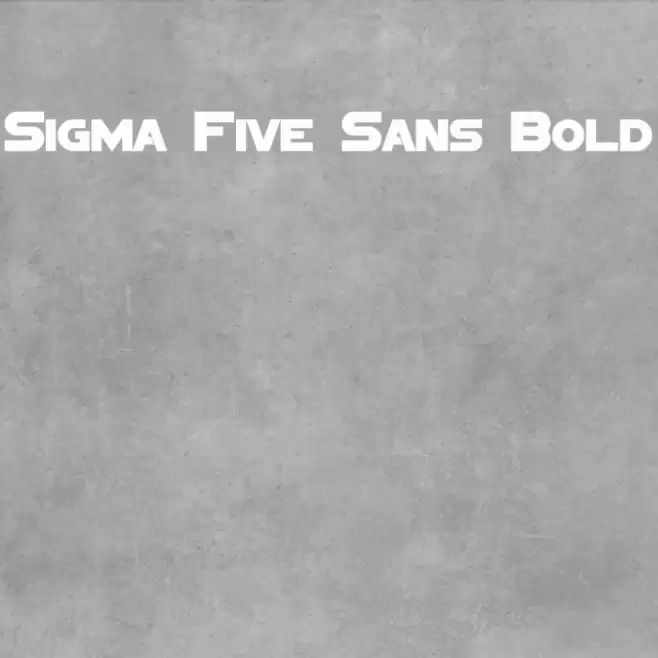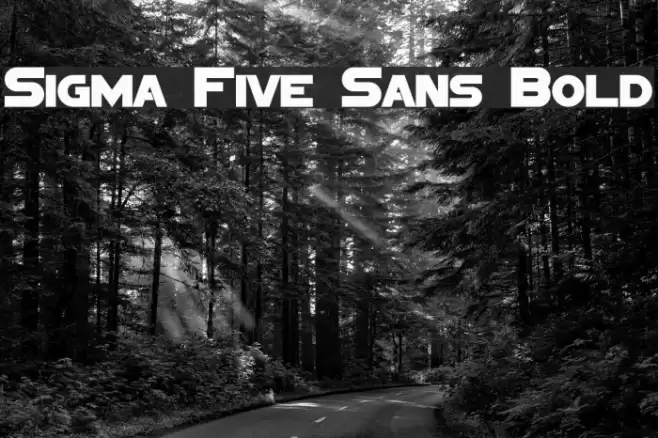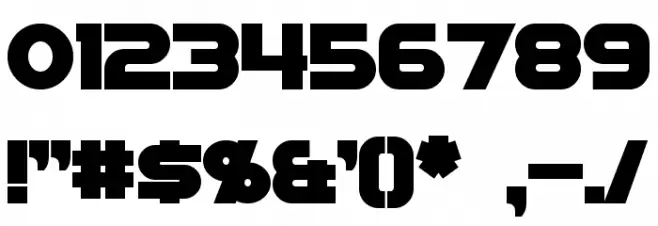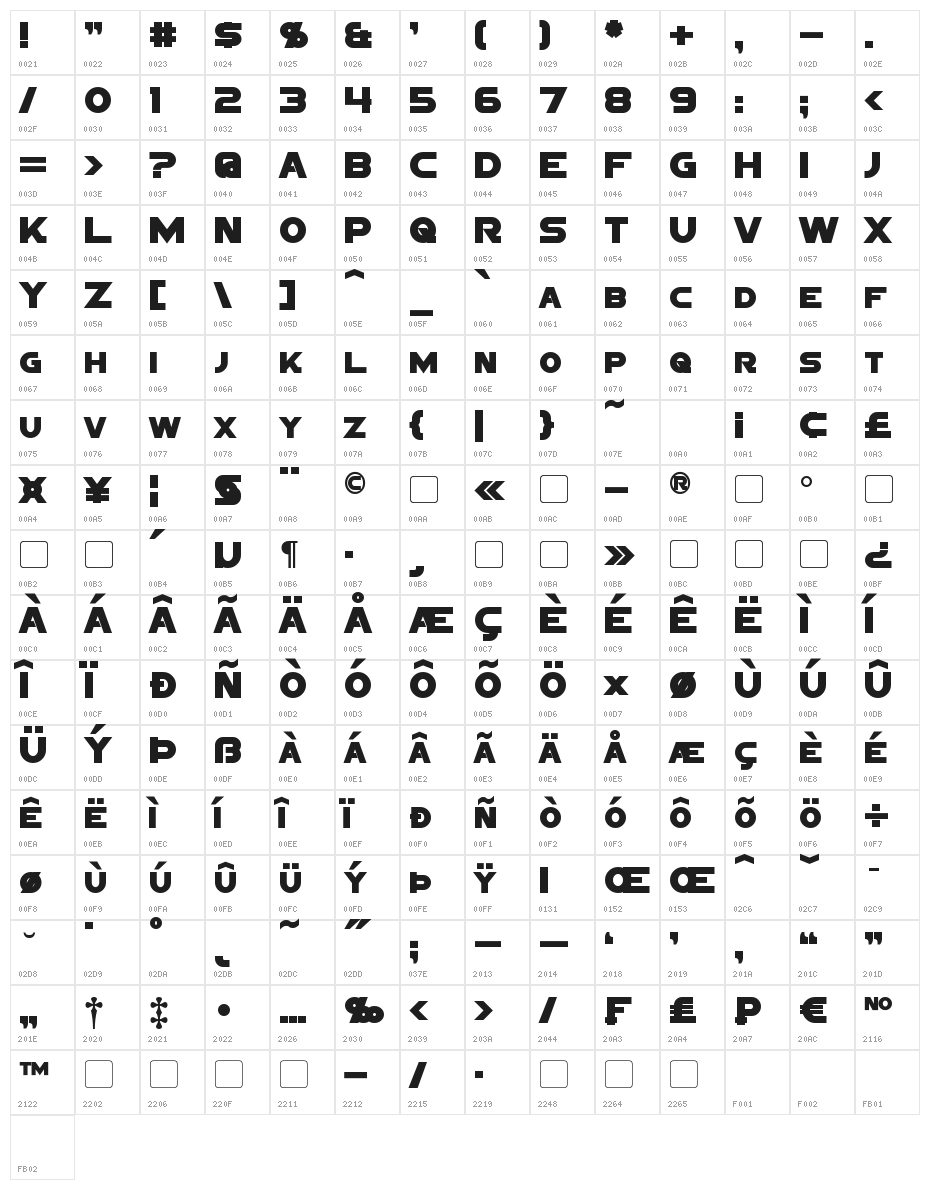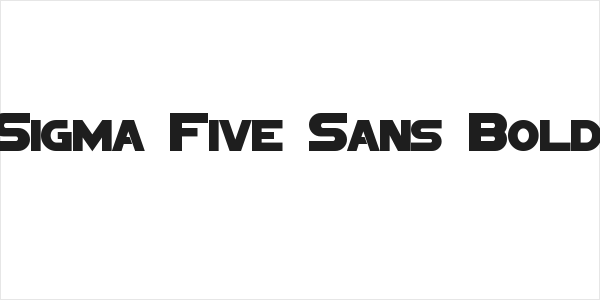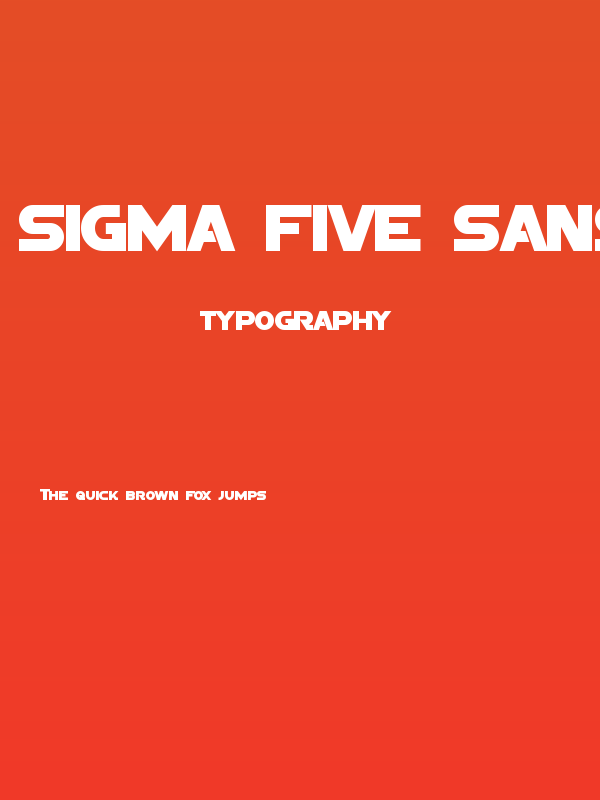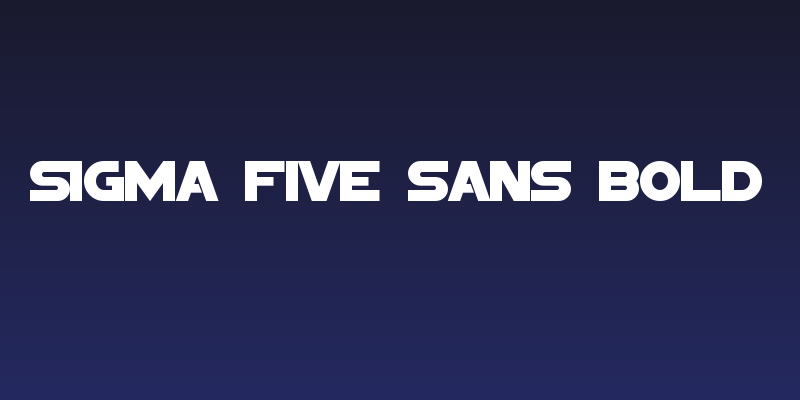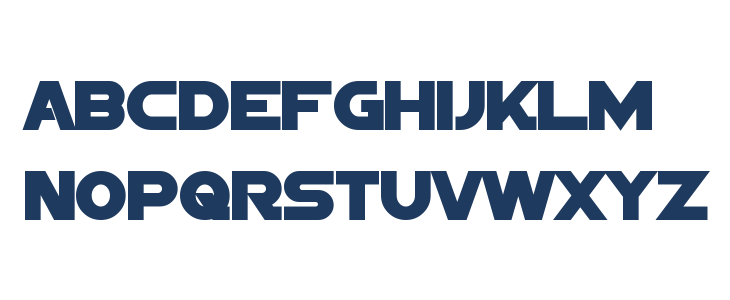
Sigma Five Sans Bold Font
Sigma Five Sans Bold Description
This font is a bold, sans-serif typeface characterized by its strong geometric shapes and solid structure. The letters are uniformly thick, providing a sense of stability and modernity. The uppercase and lowercase letters maintain a consistent height, contributing to a cohesive appearance. The numbers and special characters are designed to match the boldness of the alphabet, ensuring a uniform look across all characters. The font's clean lines and lack of serifs make it highly legible, even at smaller sizes. Its bold nature makes it ideal for grabbing attention, while the geometric design adds a contemporary feel.
A bold, geometric sans-serif font with a modern and cohesive design from Uncategorized fonts.